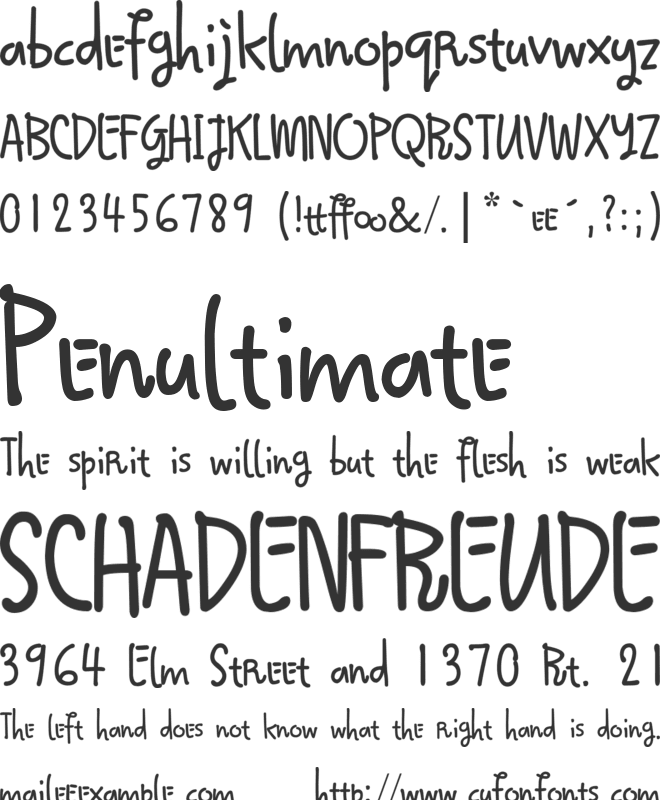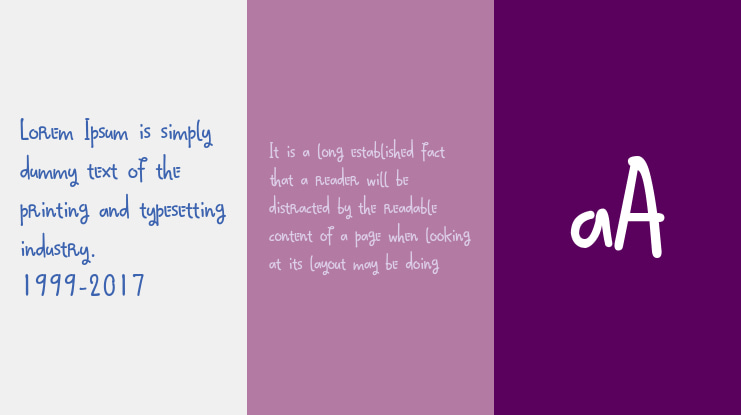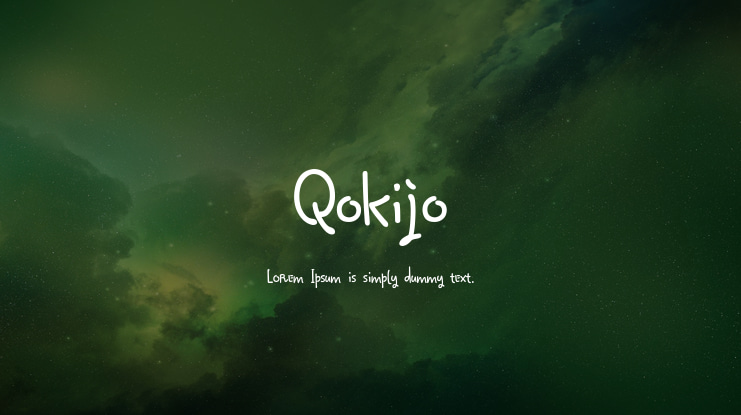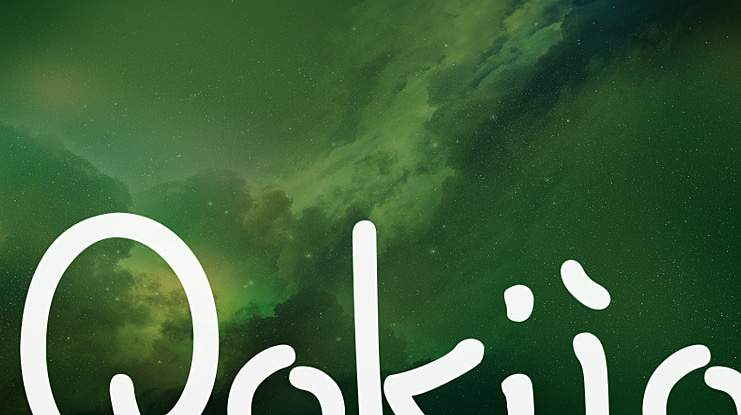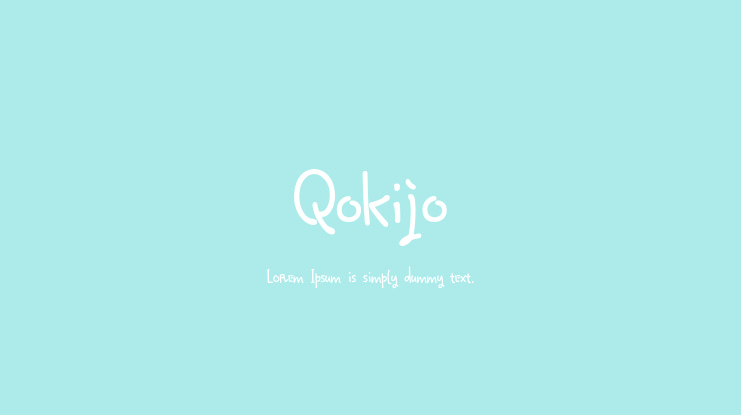
Qokijo Font
My own handwriting using a cokey pen - after years of abomination it is given a new lease on life by being tamed as a font.Please use it freely, but notify me if you want to use commercially.Enjoy!